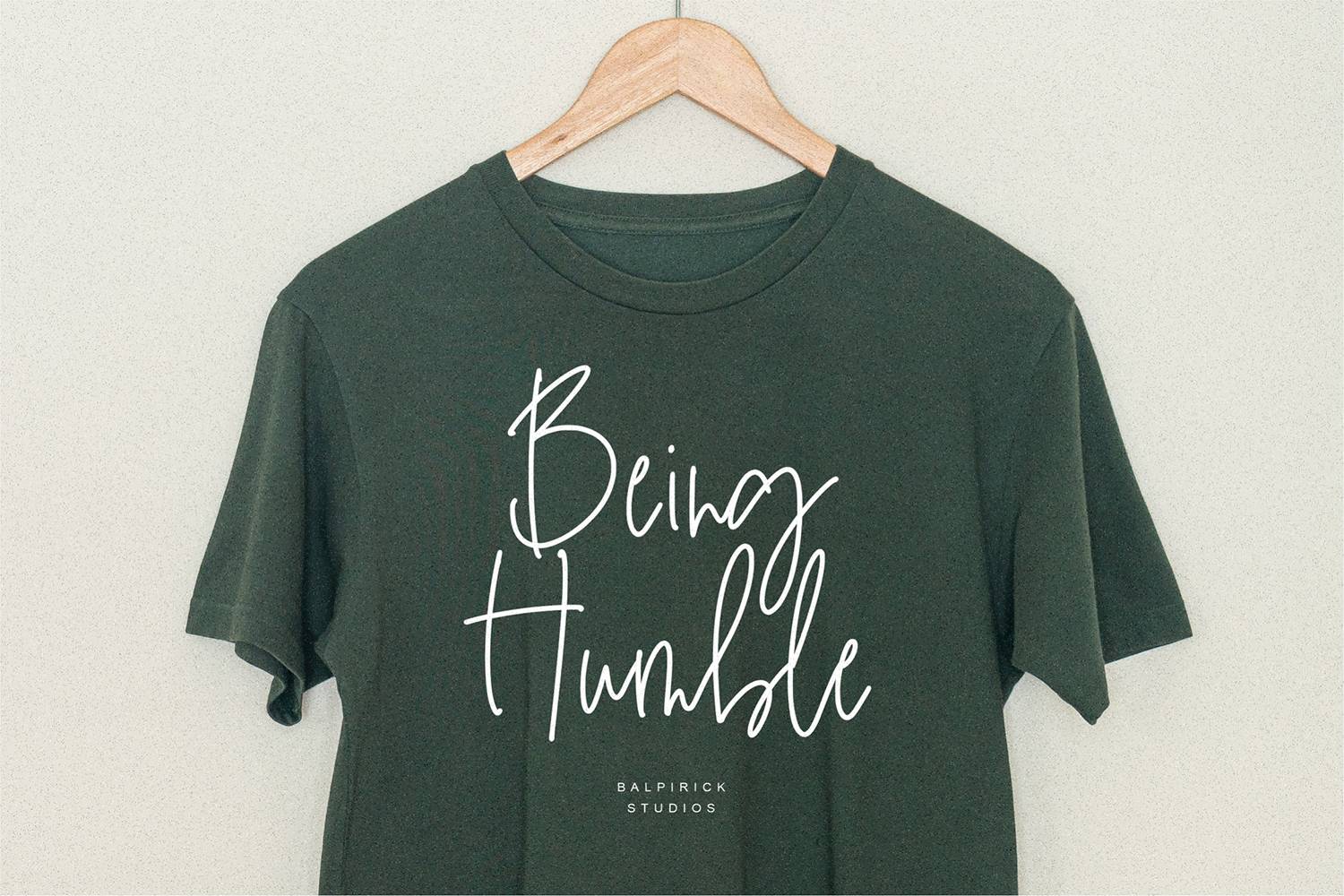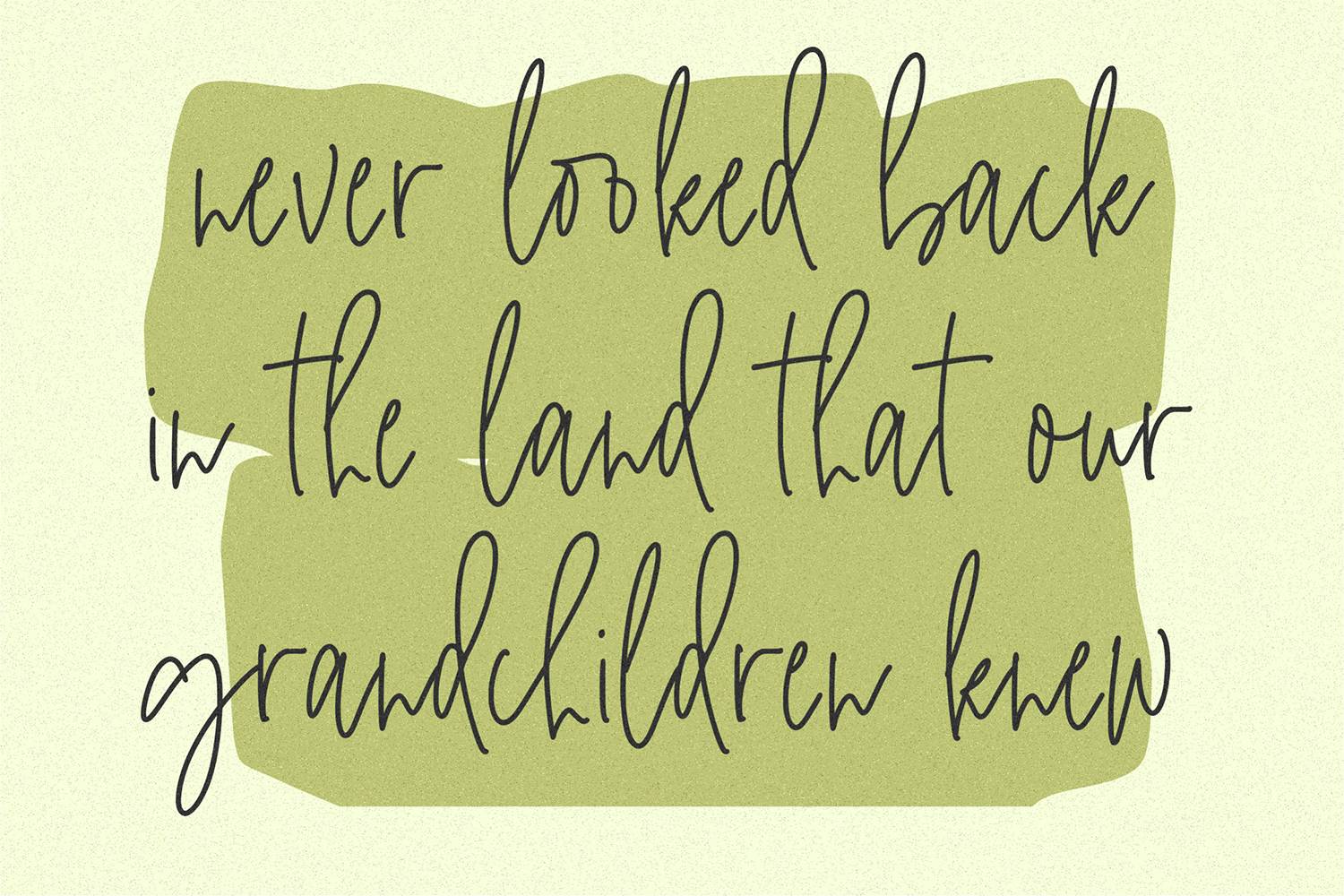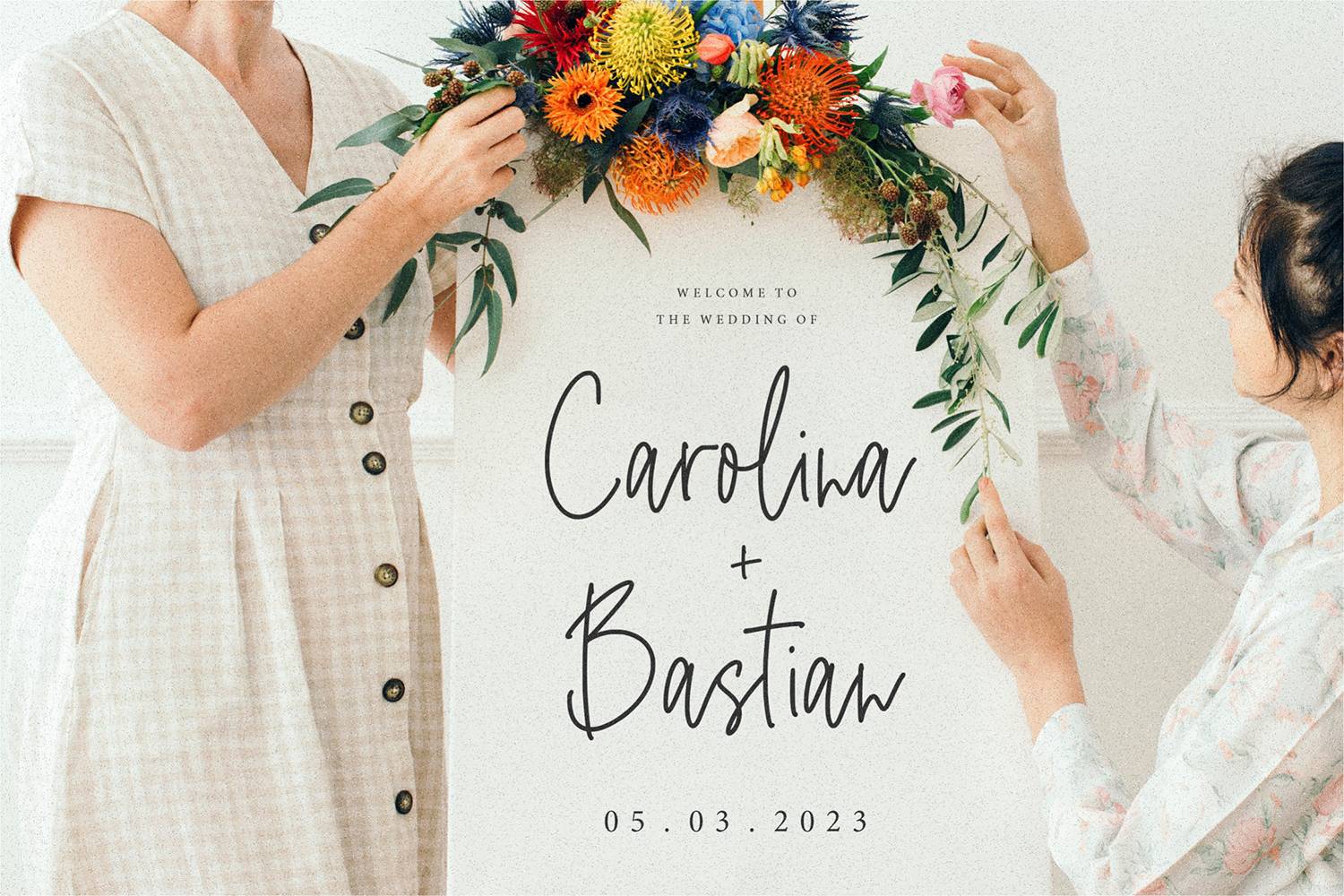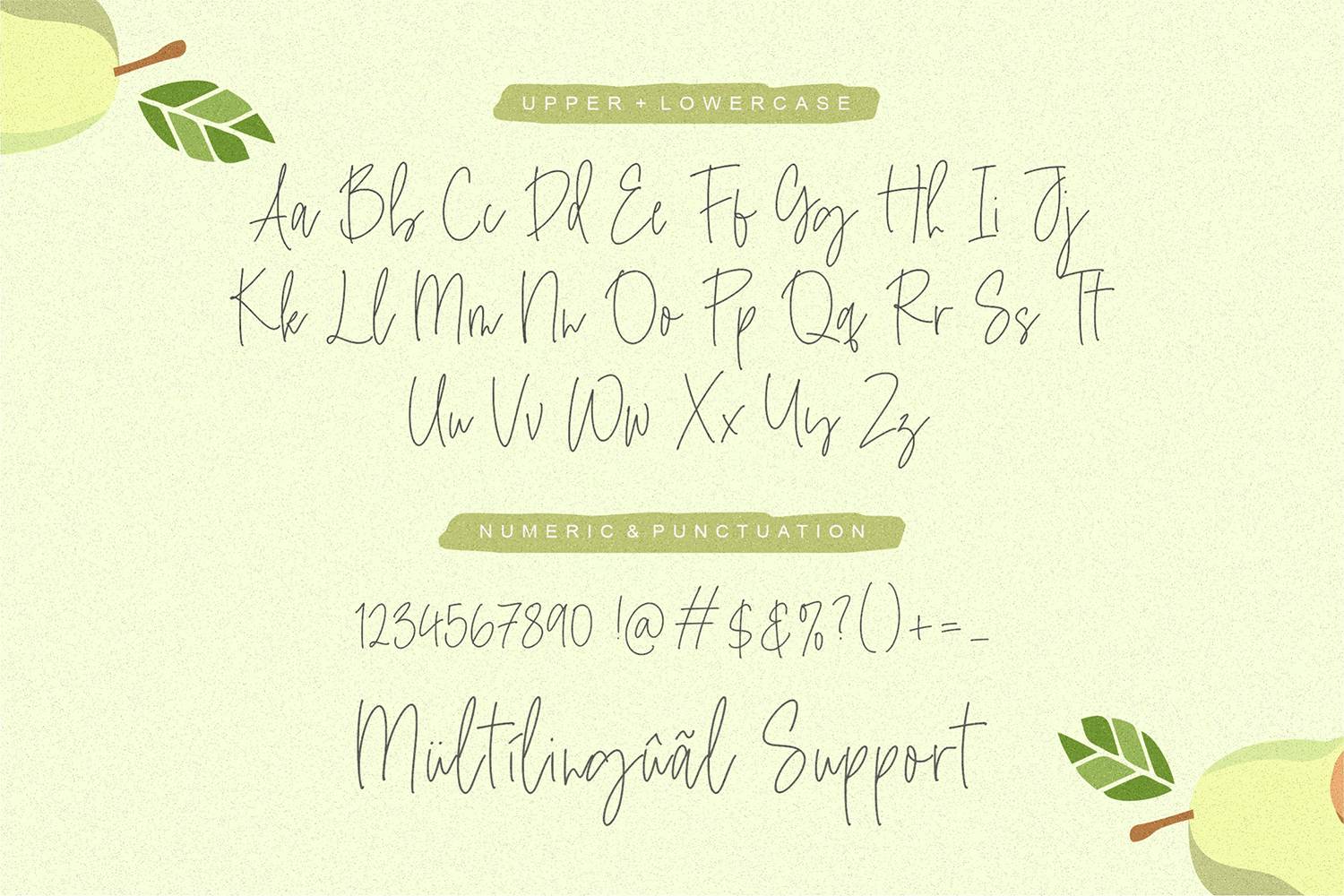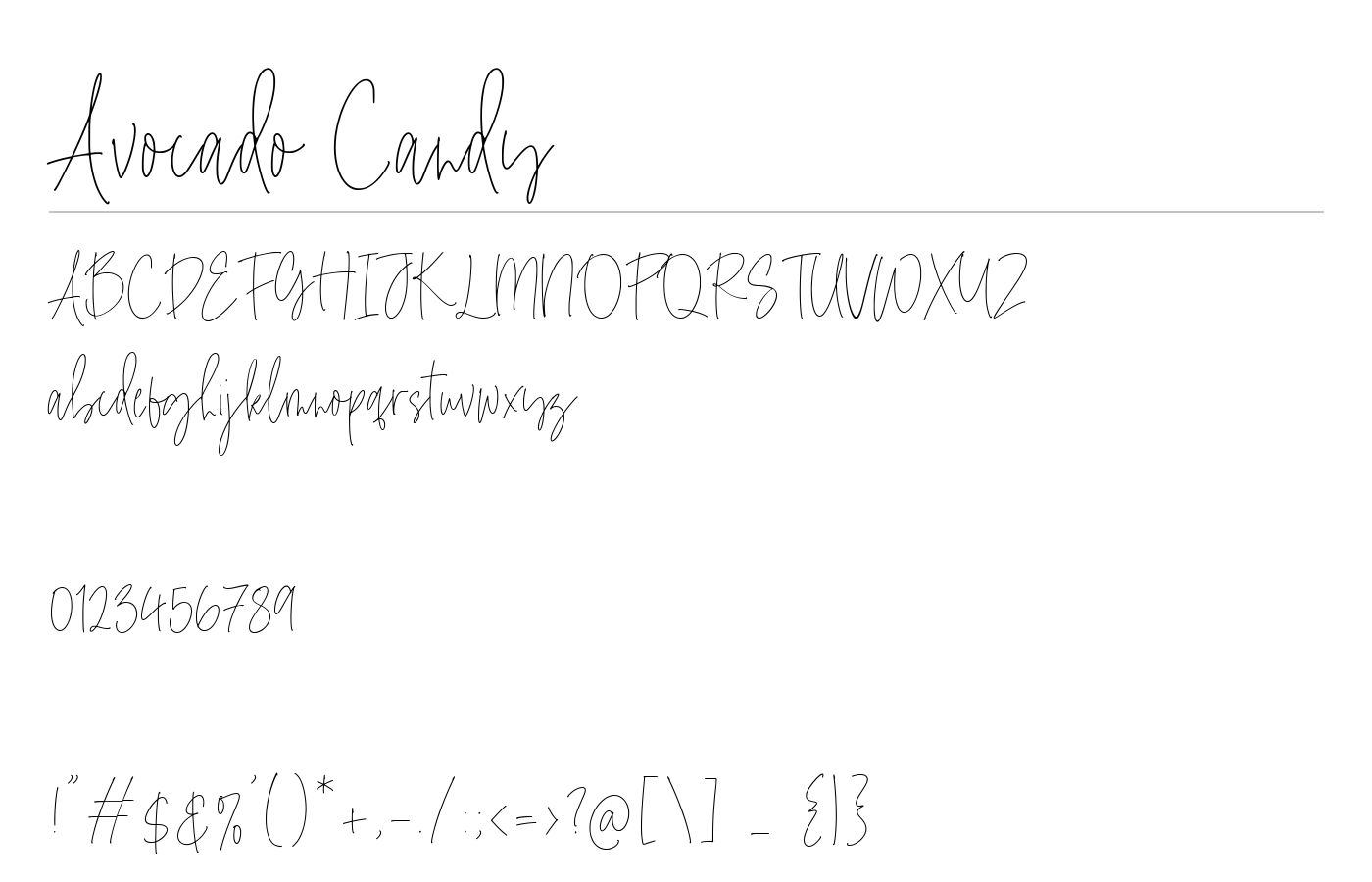
Avocado Candy is a delicate, handwritten script font characterized by its thin, airy strokes and tall, narrow letterforms that create an elegant yet playful vibe. Its fine lines and whimsical style make it perfect for creative projects that seek a personal and artistic touch, such as invitations, branding, and lifestyle blogs where a light and charming personality is desired. This font works best in large sizes to showcase its unique character and intricate details.
Avocado Candy Font
About Avocado Candy Font